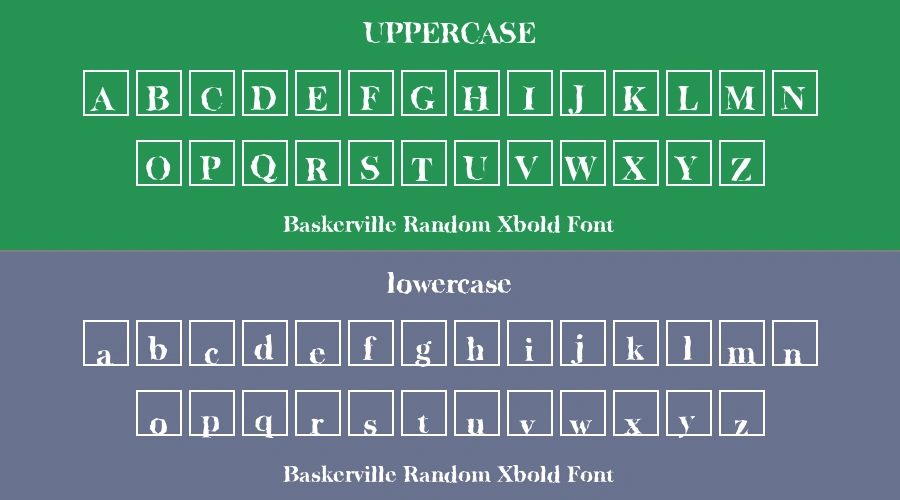
About Baskerville Random Xbold Font
Baskerville Random Xbold Font stands out for its distinctive combination of harmonious shapes and visual comfort. Ideal for marketing materials, it provides the adaptability and enduring appeal that professional projects demand. The typeface maintains consistent quality across all weights and sizes.
Key features include refined humanist proportions and practical authentic details, enhancing typographic expression. In editorial spreads applications, Baskerville Random Xbold Font demonstrates exceptional headline impact. The ear formation and market positioning contribute to its distinctive character and professional appeal.